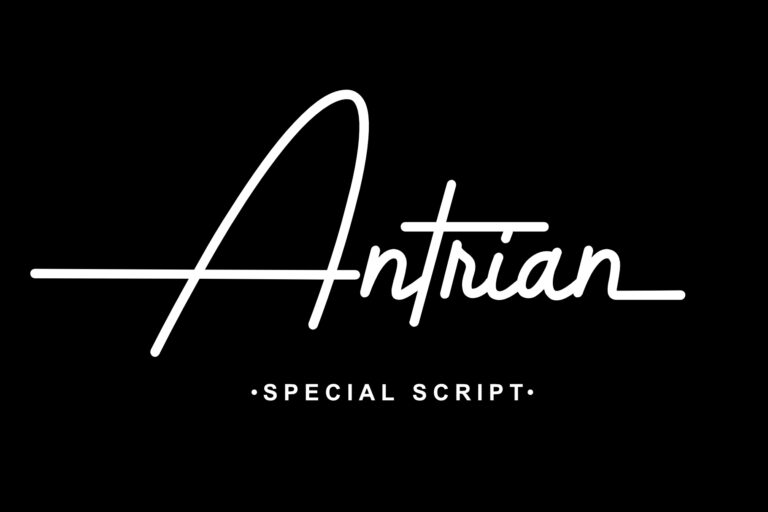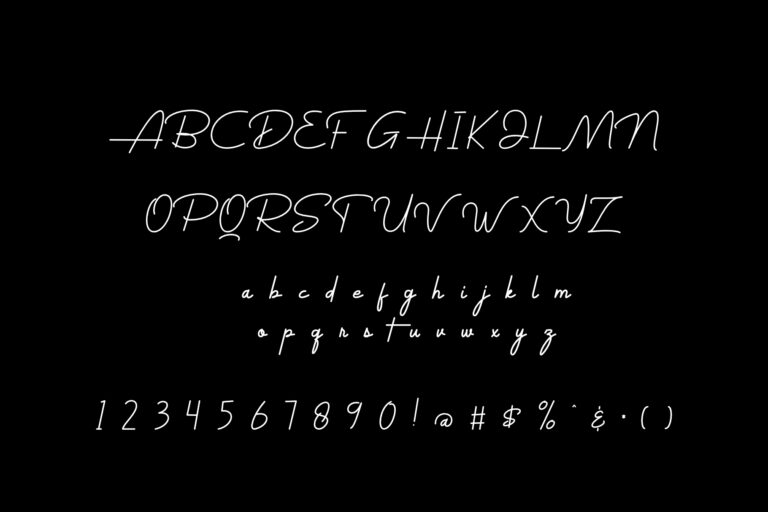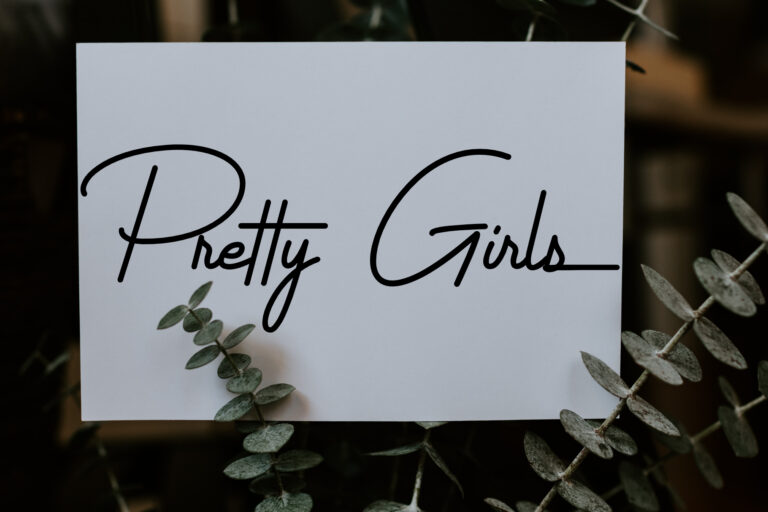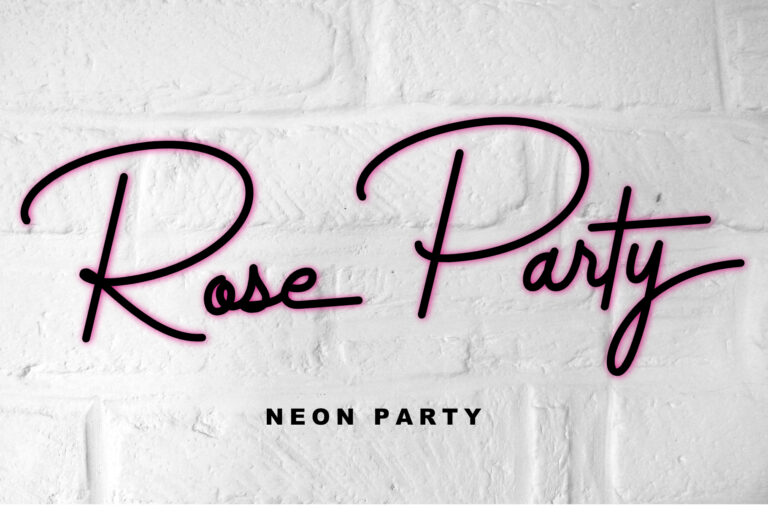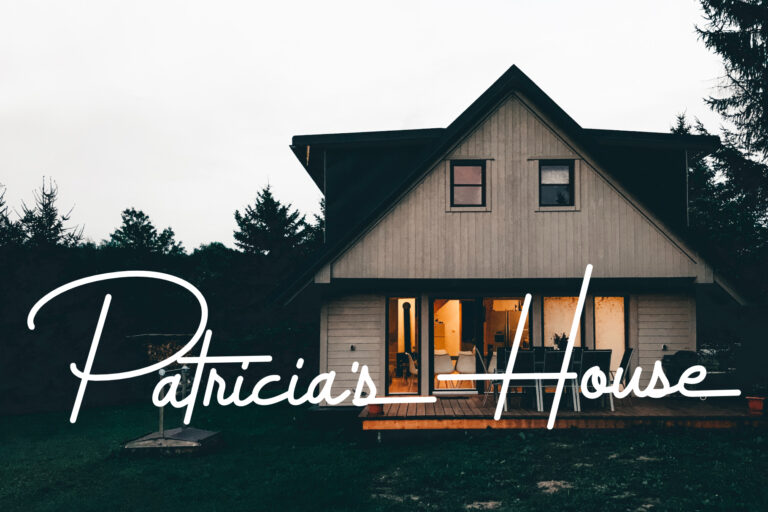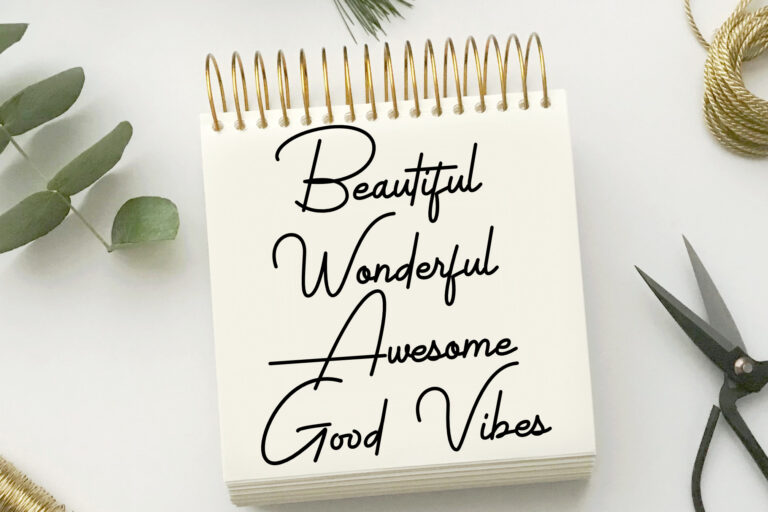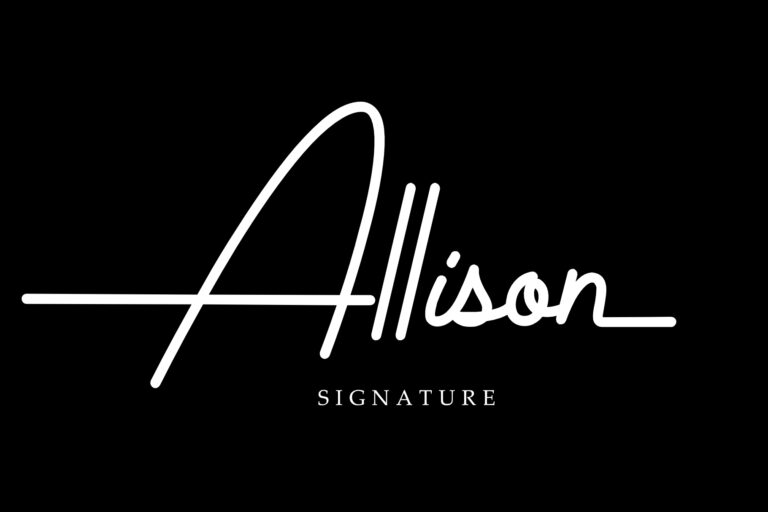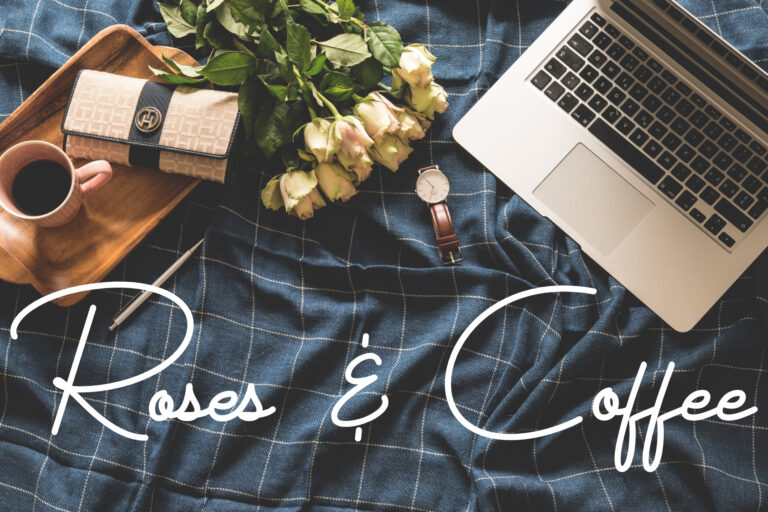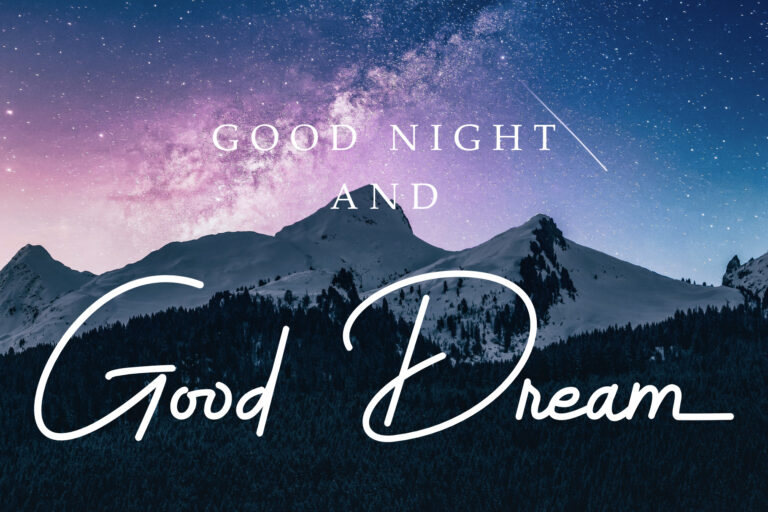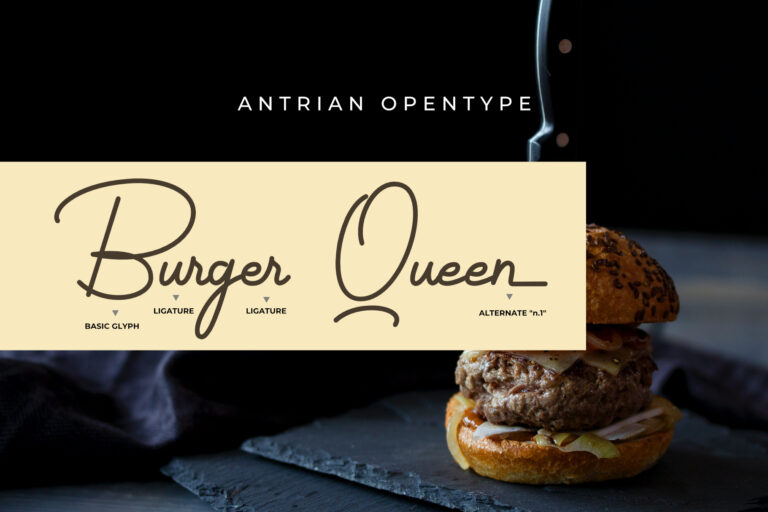
Antrian an elegant new font! This script font is specially created for those of you who need a touch of elegance to design your projects next with perfect results and amazing.